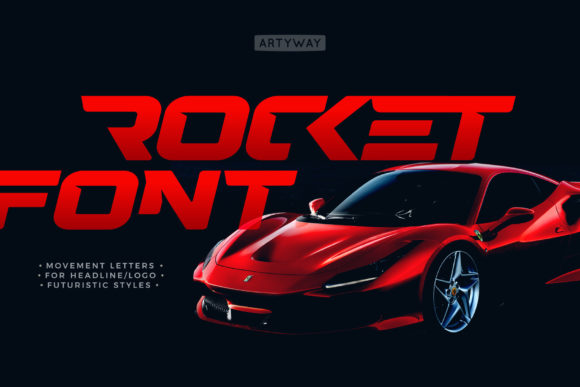
Journey into the cosmos with Rocket Font, the celestial display font that ignites your designs with a spark of interstellar energy. Sculpted with precision and passion, Rocket Font transcends the boundaries of ordinary typography, propelling your words into a realm of cosmic elegance.
With its clean and decisive lines, Rocket Font strikes a perfect equilibrium between futurism, dynamism, and tranquility. Each letter, meticulously crafted, exudes a sense of calm confidence, like a celestial body radiating its steady glow against the vast darkness of space. The result is a font that captivates and inspires, perfectly suited for headlines, logos, and any design that seeks to soar beyond the mundane.
Rocket Font's versatility is as boundless as the universe itself. Its dynamic strokes lend themselves effortlessly to a multitude of creative endeavors. Whether you're crafting posters that evoke the thrill of space exploration, designing logos that embody the spirit of innovation, or creating social media graphics that ignite imaginations, Rocket Font is your cosmic companion, ready to elevate your designs to new heights.
Immerse yourself in the enchanting world of Rocket Font, where letters dance like constellations against the backdrop of your imagination. Let your creativity take flight as you explore the infinite possibilities that this font holds. As you type, feel the power of the cosmos coursing through your fingertips, transforming words into celestial masterpieces.
Harness the allure of Rocket Font and watch as your designs metamorphose into captivating works of art, captivating the attention of all who behold them. With every stroke, you'll leave an indelible mark on the digital universe, leaving your audience starstruck by the brilliance of your creations.
Don't let your designs remain earthbound. Unleash the power of Rocket Font and embark on a journey of limitless creativity, where your imagination knows no bounds. Embrace the cosmic elegance that awaits and ignite your designs with the brilliance of the stars.